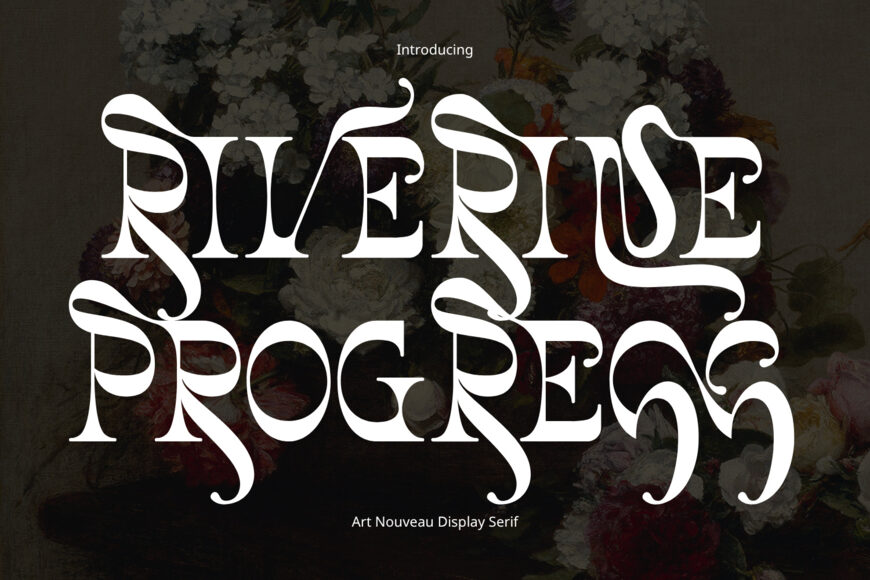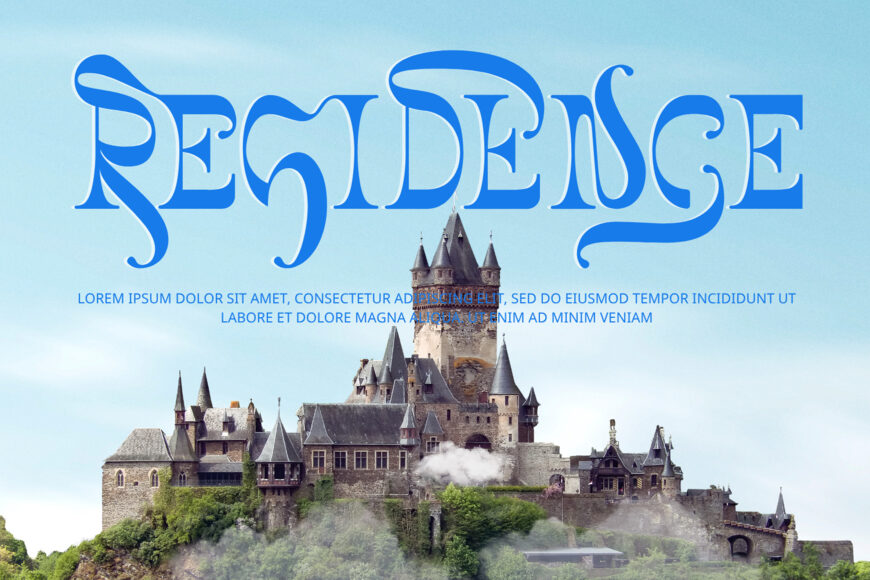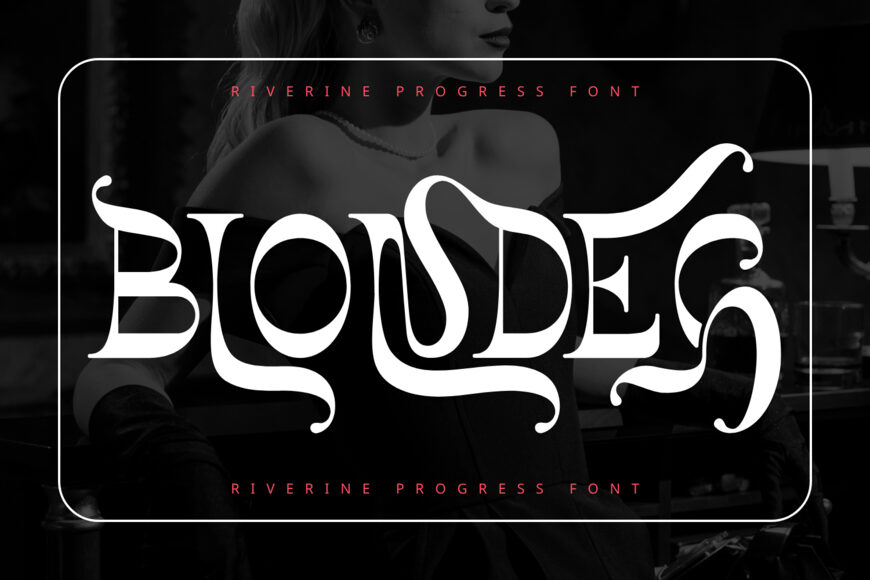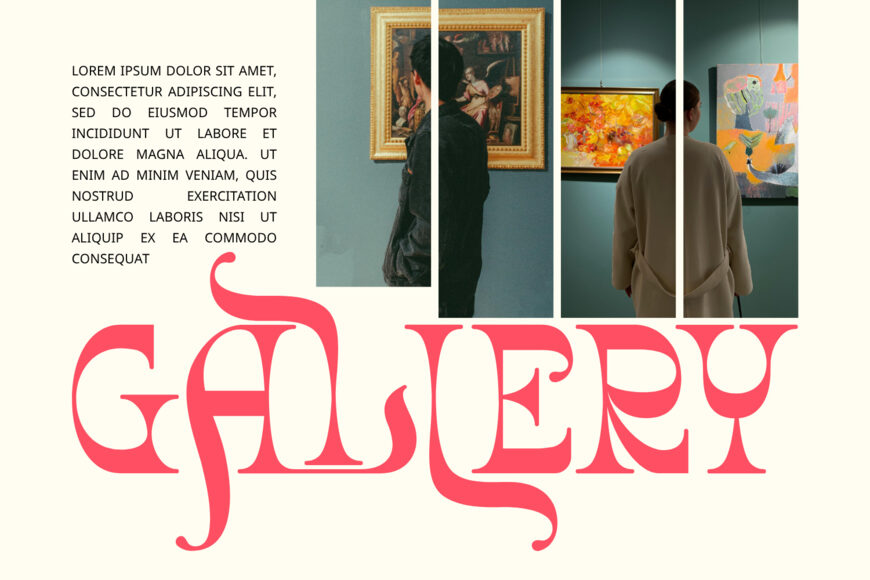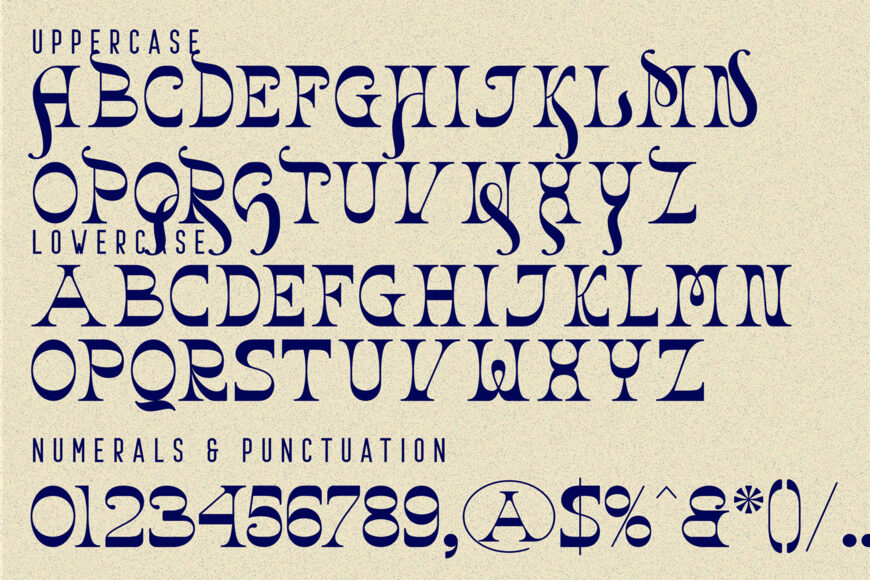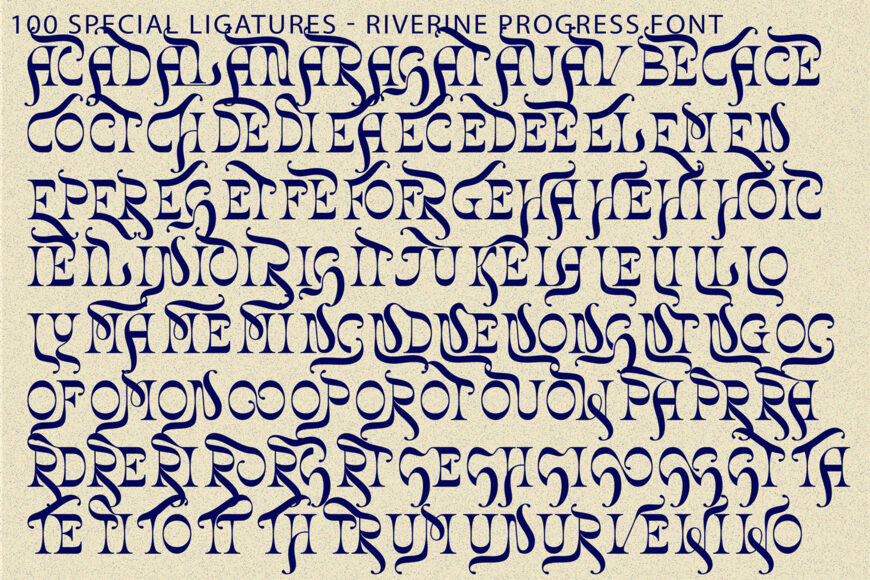
Riverine Progress Font
Riverine Progress is a unique serif font that blends classic sophistication with artistic flair. Inspired by Art Nouveau, it features dramatic strokes, curved lines, and ornate details.
This elegant font is perfect for luxury brands, fashion, and high-end designs, making a statement at large sizes. Its refined yet unconventional style adds a touch of drama and whimsy, making it ideal for creative projects that require a sense of elegance and sophistication.